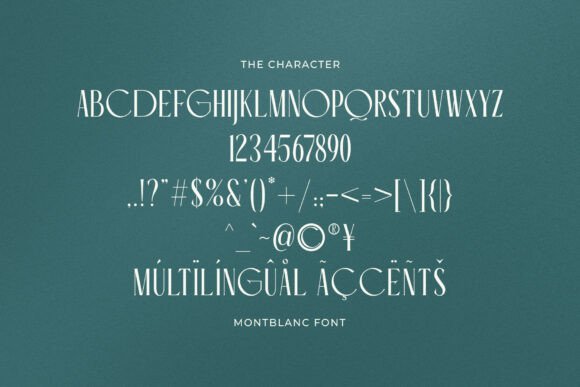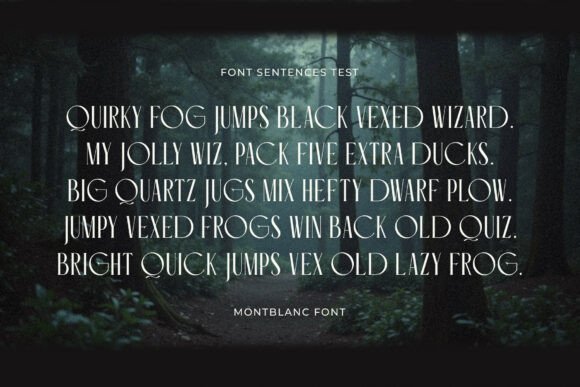
Introduction to Montblanc Font
The Montblanc font is a refined serif typeface that exudes elegance and sophistication.
Its tall, graceful letterforms are designed to evoke a sense of grandeur and timeless beauty Perfect for luxury branding, editorial designs, and high-end projects, Montblanc captures attention with its delicate balance of bold and slender strokes.
Key Features of Montblanc Font
Why Choose Montblanc Font?
Montblanc Font offers exceptional quality and versatility, making it a valuable addition to your design toolkit. Whether you’re creating for personal projects or commercial use, Montblanc Font delivers professional results.